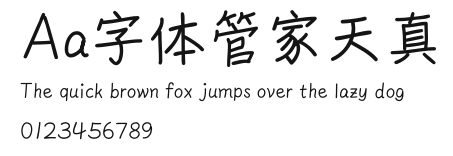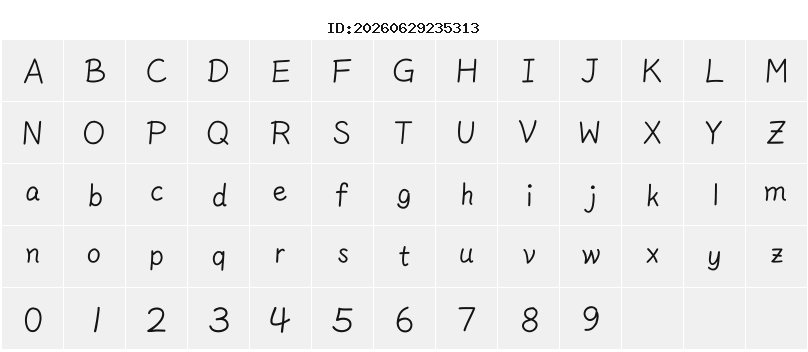
Aa字体管家天真 Preview
• Description: AaZTGJTZ is a fantastic font with excellent features designed for user interfaces and electronic communications.
About Aa字体管家天真.ttf
Aa字体管家天真.ttf is a modern, elegant sans-serif font designed for ultimate readability and visual harmony. Perfect for branding, headlines, web design, and print materials.